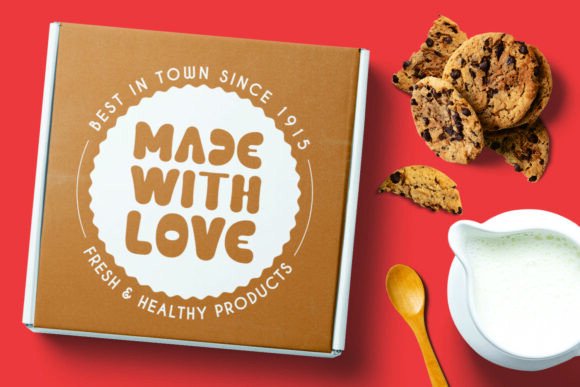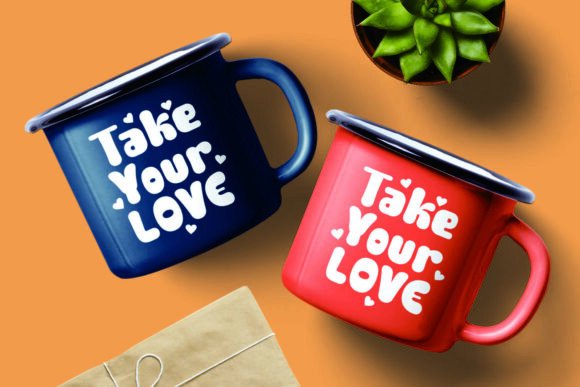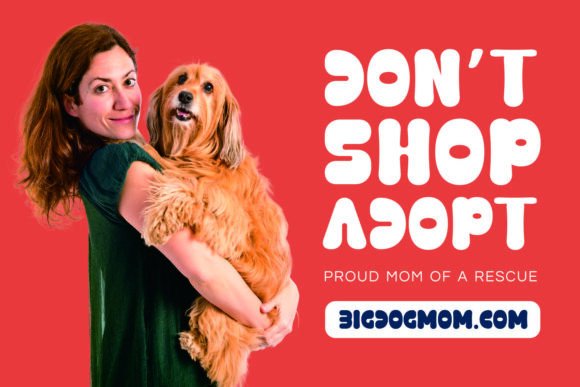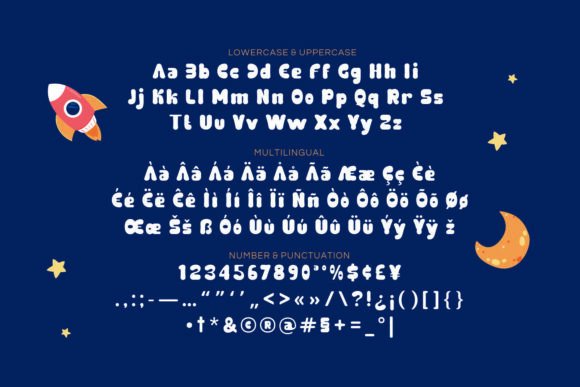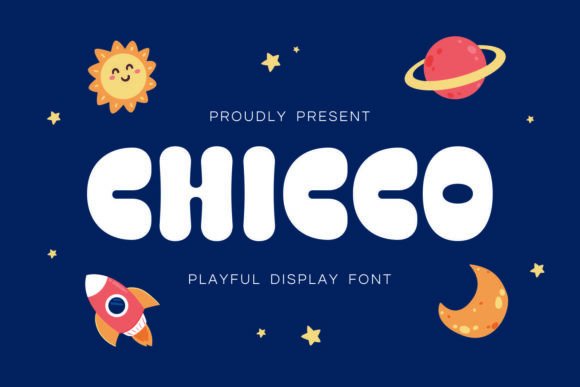
Introducing Chicco Font: The Ultimate Display Font for Adding a Touch of Whimsy to Your Designs
Say hello to Chicco, a delightfully bold and friendly display font that’s bursting with personality! With its super-rounded letters and chunky, consistent strokes, Chicco is designed to bring a sense of fun approachability to any project. Each character in Chicco has been crafted to be soft, bubbly, and incredibly charming. The thick letterforms make a big impact, ensuring your headlines and quotes stand out in the most playful way possible.
The Perfect Font for Playful Designs
Whether you’re designing for a children’s brand, a cozy cafe, a pet adoption campaign, or a cheerful social media feed, Chicco is the perfect font to add a touch of whimsy to your project. Its playful and friendly vibe makes it an excellent choice for designers and crafters who want to create engaging and fun designs that appeal to a wide audience.
Endless Design Possibilities with Chicco
Chicco is a versatile font that can be used for a wide range of design projects, including:
• Branding: Create a memorable brand identity with Chicco’s bold and playful letterforms.
• Logos: Design a fun and catchy logo that stands out with Chicco’s unique font style.
• Food Packaging: Add a touch of whimsy to your food packaging with Chicco’s charming font.
• Merchandise: Create eye-catching merchandise such as mugs, t-shirts, and more with Chicco’s bold letterforms.
• Social Media Graphics: Make your social media feed stand out with Chicco’s playful font.
• Posters: Create fun and engaging posters that grab attention with Chicco’s thick letterforms.
• Children’s Books: Add a touch of magic to your children’s books with Chicco’s delightful font.
• Website Headers: Create a memorable website header that sets the tone for your brand with Chicco’s bold font.
Why Choose Chicco Font?
So, why choose Chicco font for your next design project? Here are just a few reasons:
• Unique and Playful Style: Chicco’s bold and friendly font style is sure to make your designs stand out.
• Highly Versatile: Chicco can be used for a wide range of design projects, from branding and logos to social media graphics and children’s books.
• Easy to Read: Despite its bold and chunky letterforms, Chicco is surprisingly easy to read, making it perfect for headlines and quotes.
• Fun and Engaging: Chicco’s playful font style is sure to add a touch of fun and engagement to your designs.
In conclusion, Chicco font is a must-have for designers and crafters who want to add a touch of whimsy and fun to their designs. With its unique and playful style, highly versatile design possibilities, and ease of readability, Chicco is the perfect font for a wide range of design projects. So why not give Chicco a try and see how it can bring a sense of pure happiness to your designs?
Whether you’re a seasoned designer or a crafty DIY enthusiast, Chicco font is sure to become a favorite in your design arsenal. So go ahead, get creative, and have fun with Chicco!